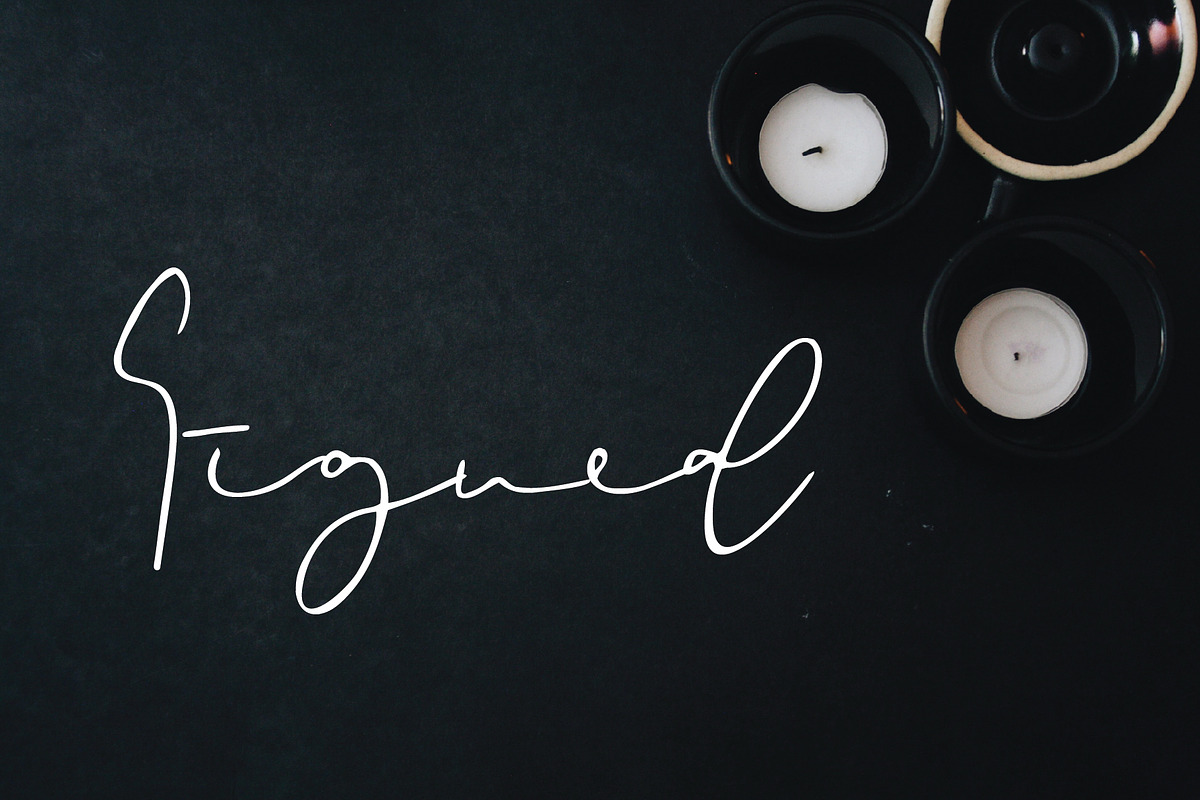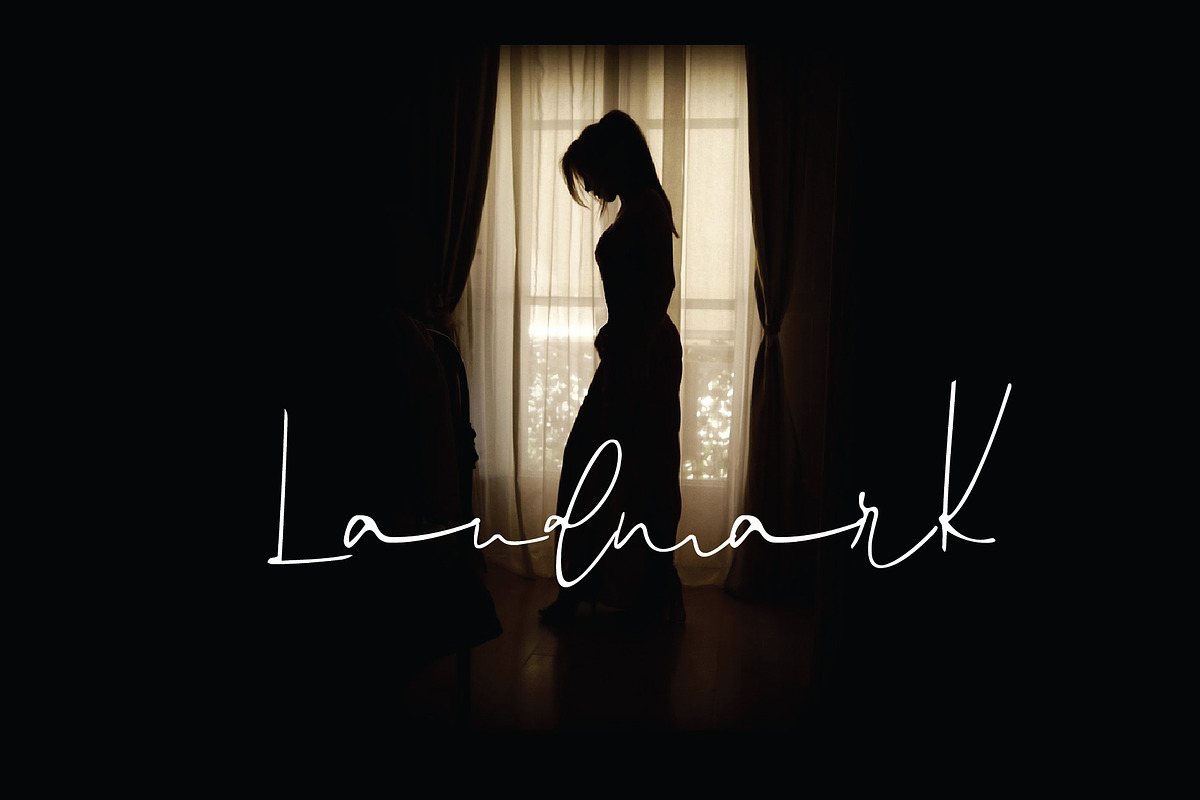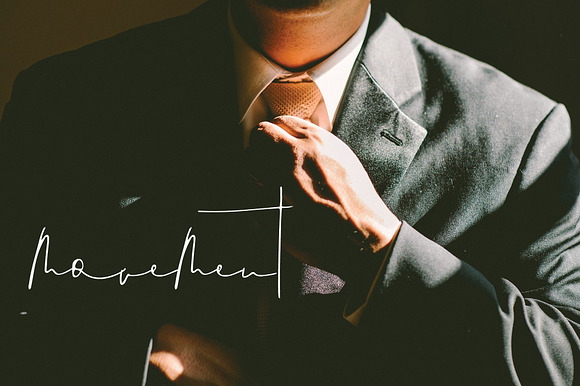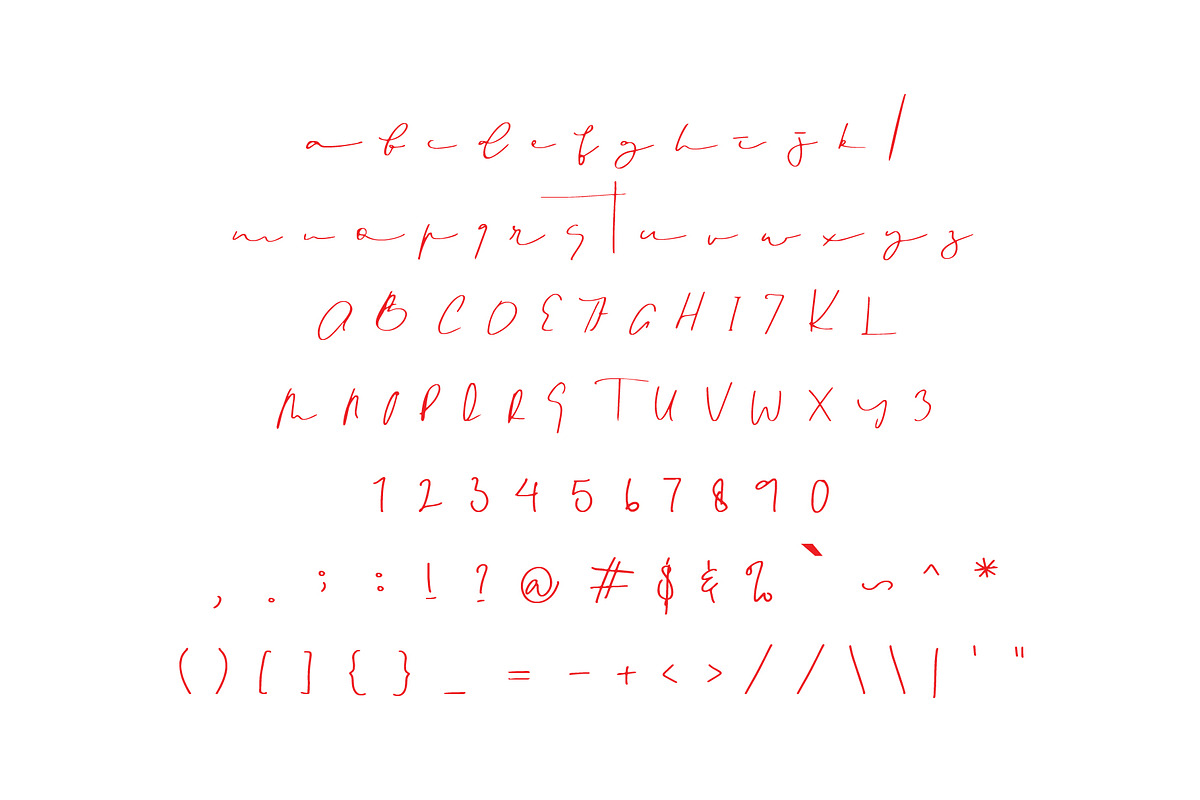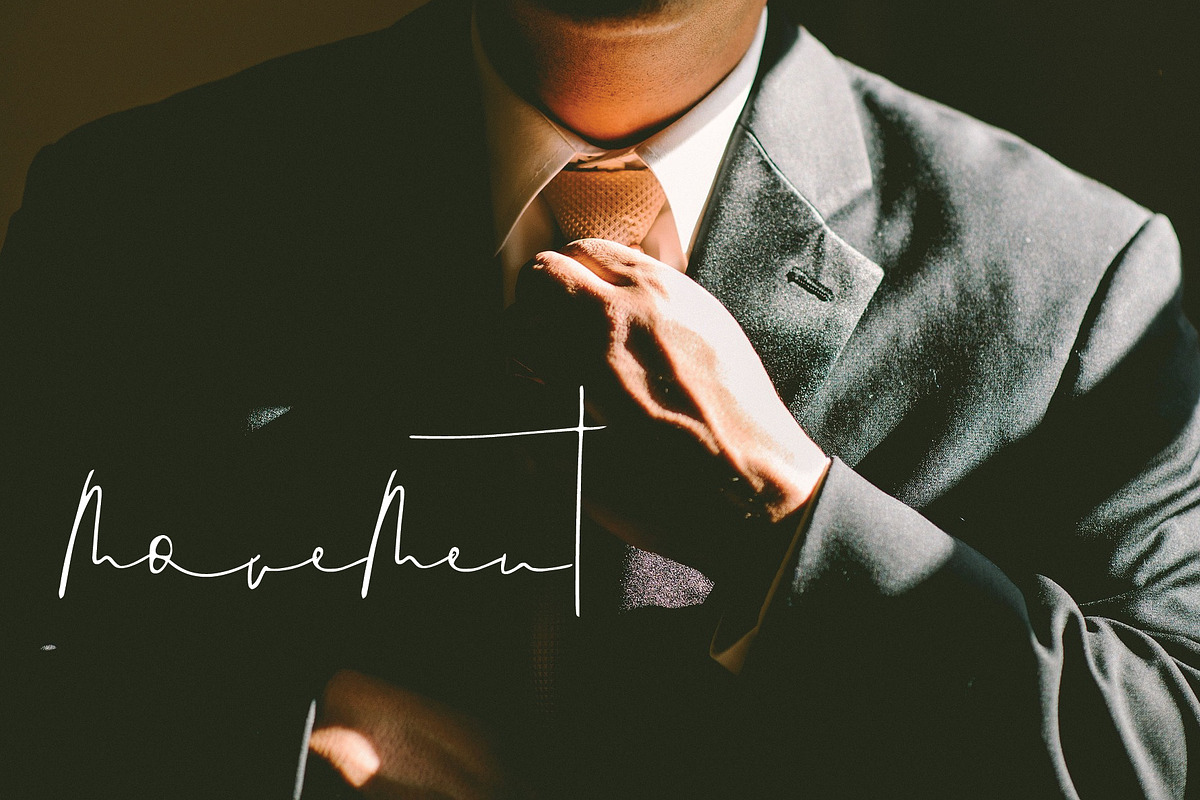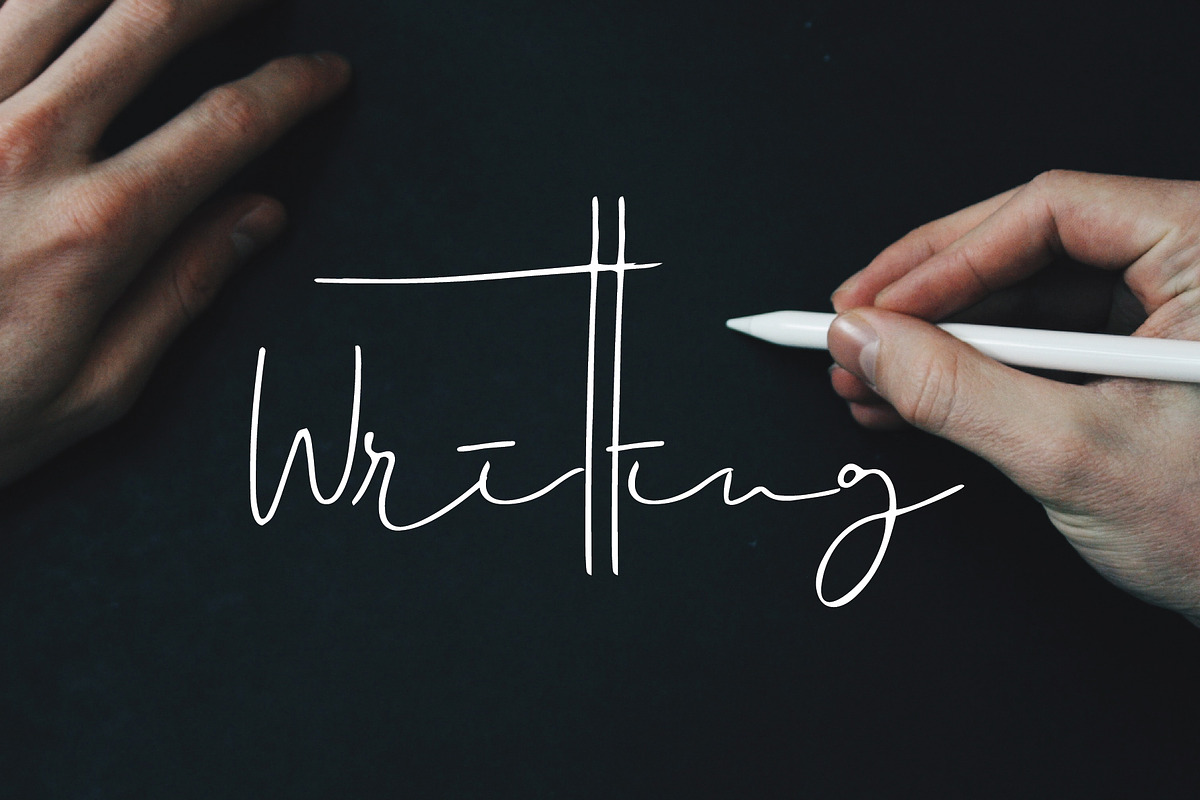
Signed font
Signed Font by Goodigital13 is a font selected for branding, posters, packaging, typography.
Why Signed font is worth a look
Signed font by Mariyana fits naturally into Branding, posters, packaging, typography.